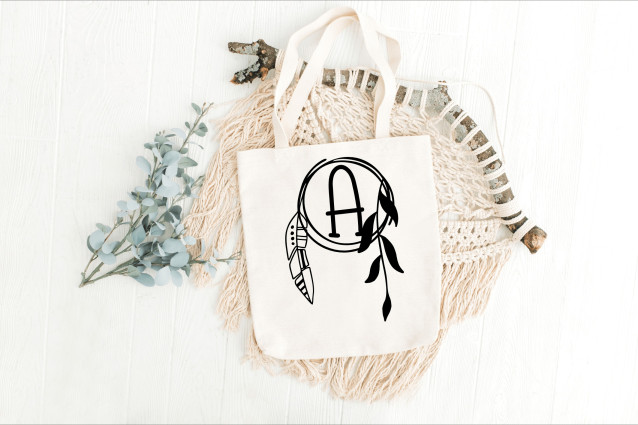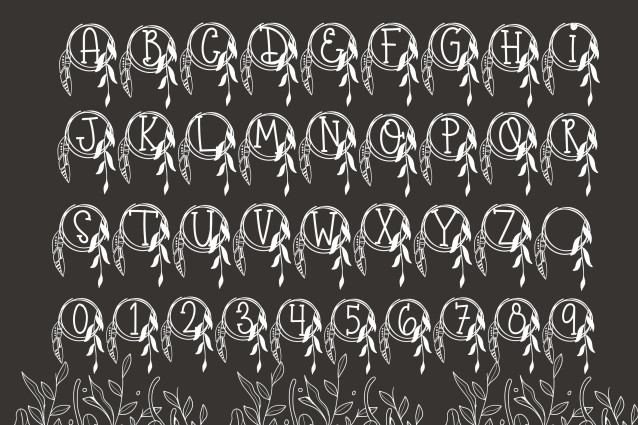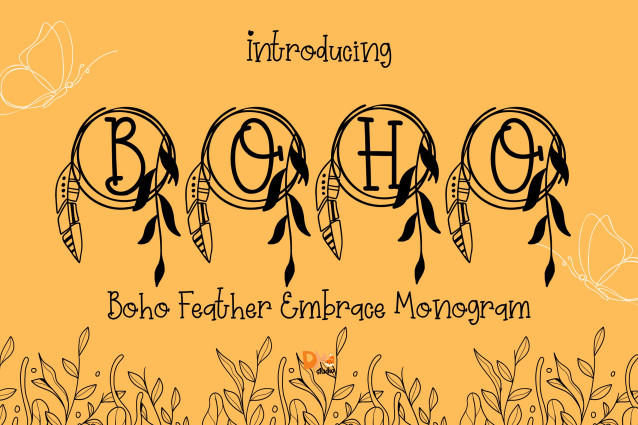
Boho Feather Embrace Monogram Font
Boho Feather Embrace Monogram is a delicate serif monogram font where each uppercase letter is lovingly encircled by hand-drawn bohemian feathers. Designed to evoke a sense of softness, nature, and spiritual calm, this font is ideal for wedding stationery, feminine branding, boho crafts, and soulful custom gifts.